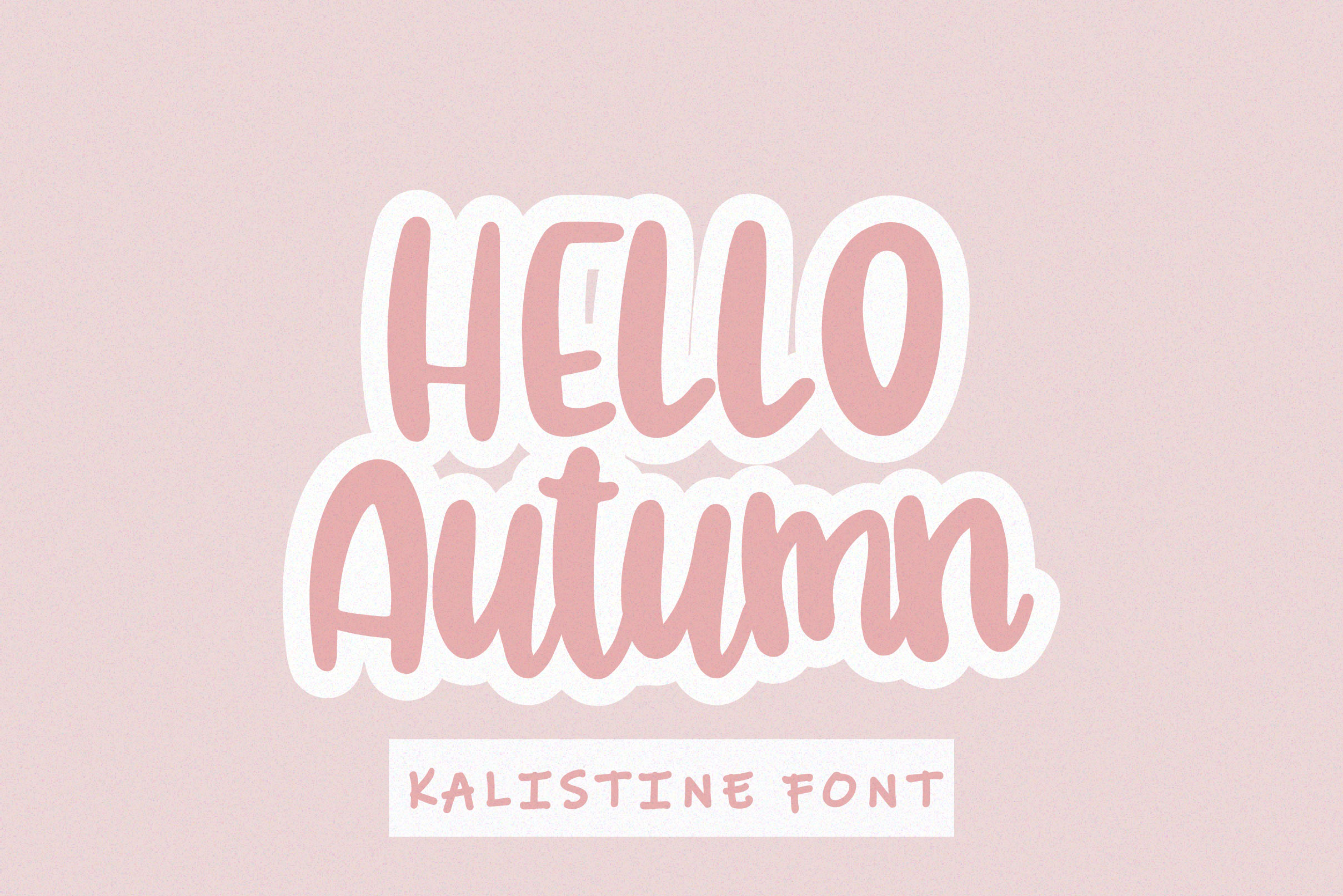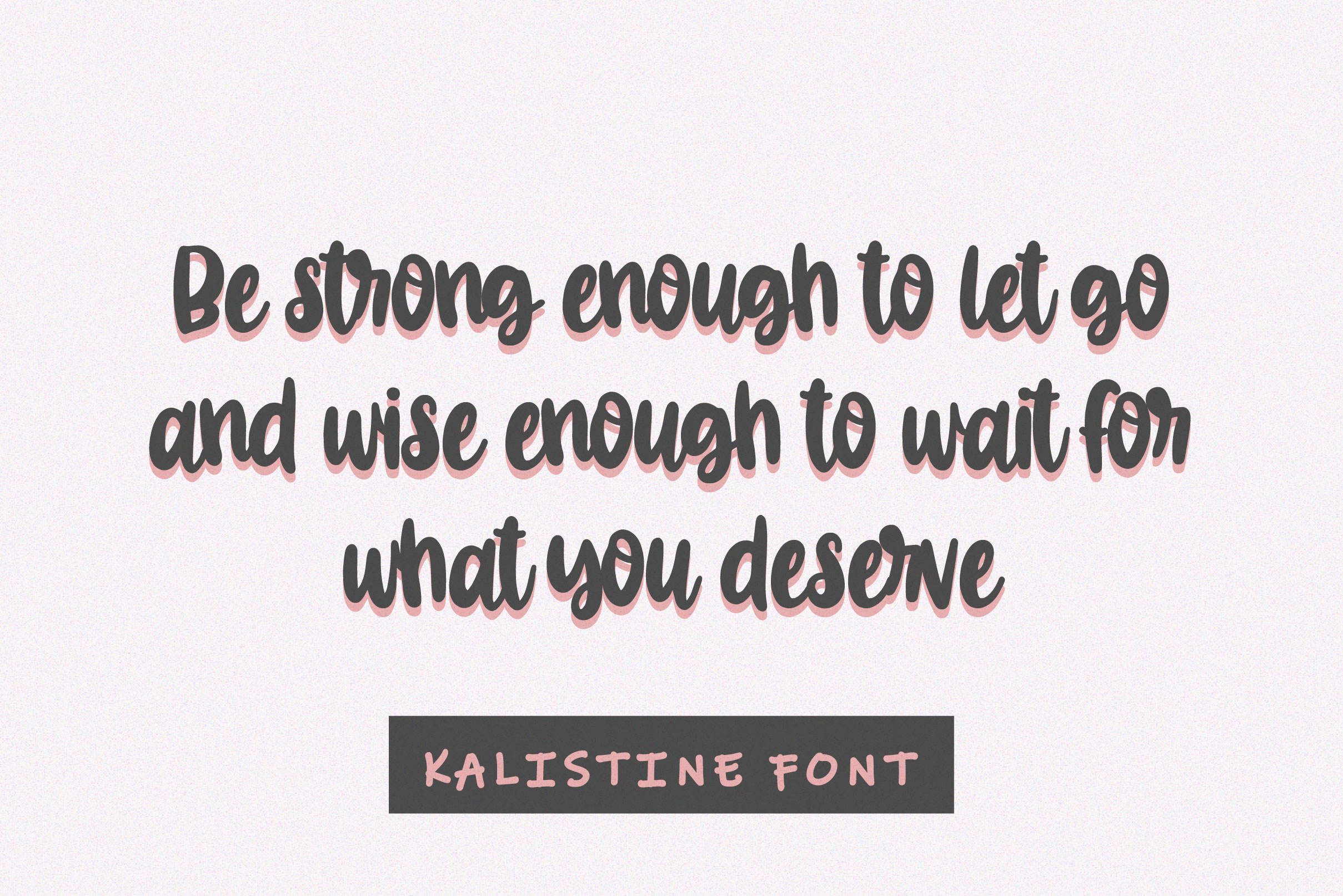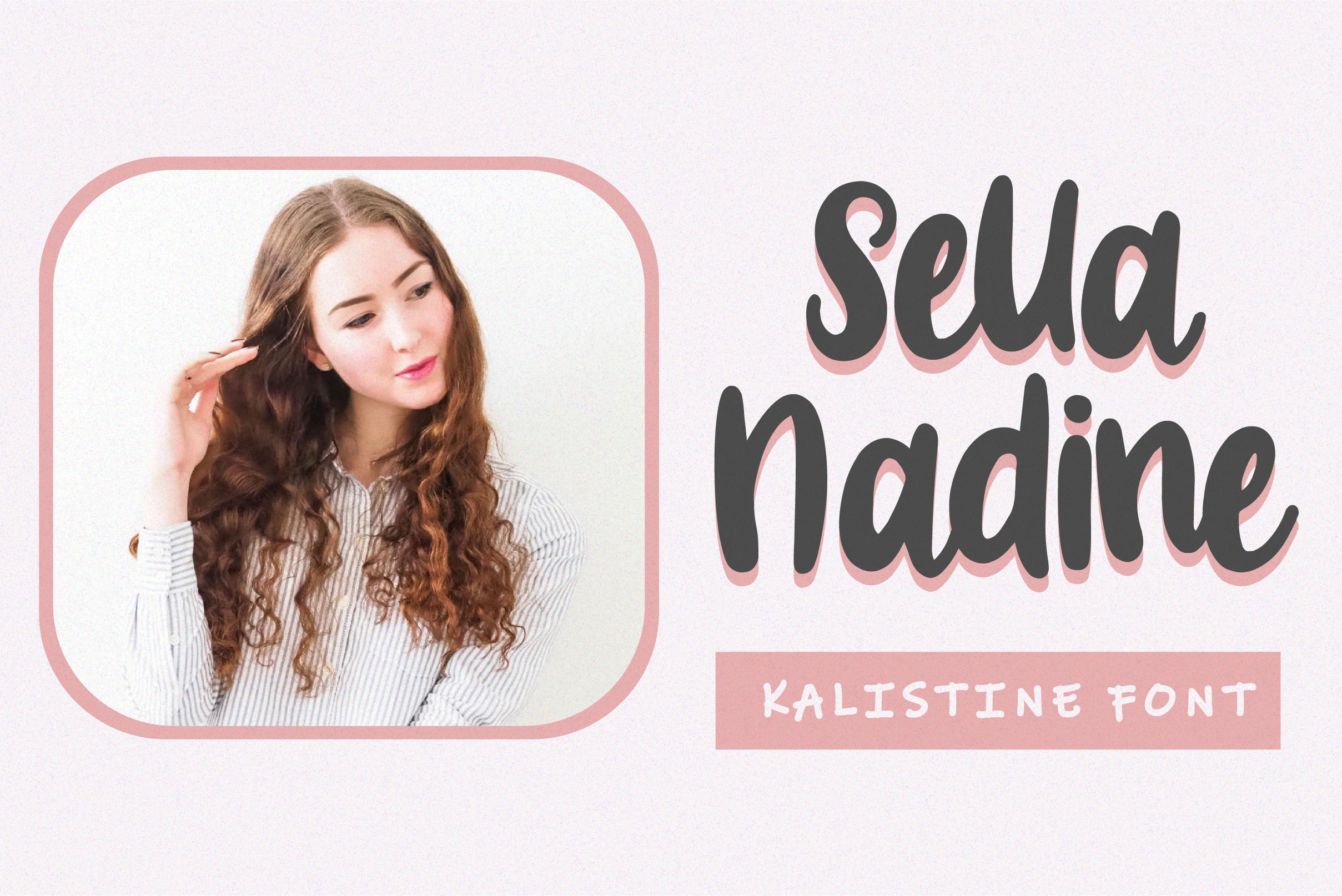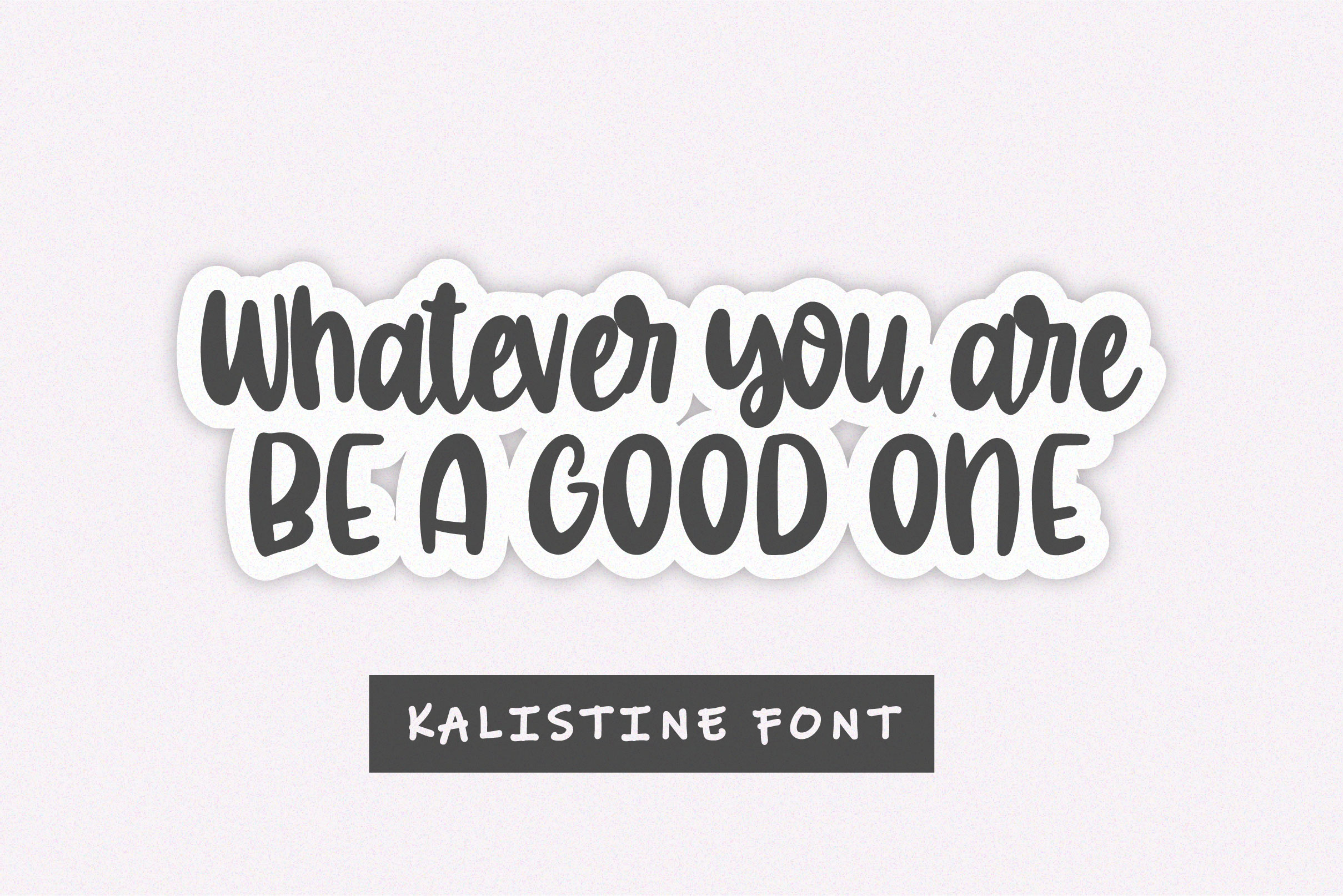
Kalistine Font
Kalistine Script Font is an incredibly unique handwritten font. Masterfully designed to become a true favorite, this font has the potential to bring each of your creative ideas to the highest level!
– Uppercase, Lowercase, Numeral & Punctuation
– Alternate Letters, Ligature & Swash/Tail